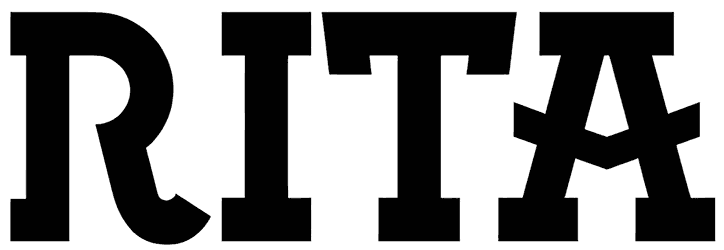
Here we have brought an all-caps Galician font, such as Rita, for you. Since some traditional symbols are used in crafting this font, it can easily influence the audience and persuade them to follow all of your artwork, including posters, brochures, magazines, web pages, and social media posts.
If creating a vibe of eerie, vintage, drama, or captivating is your first preference, never overlook this slab serif font.
Tipografia tradicional galega / Galician traditional font